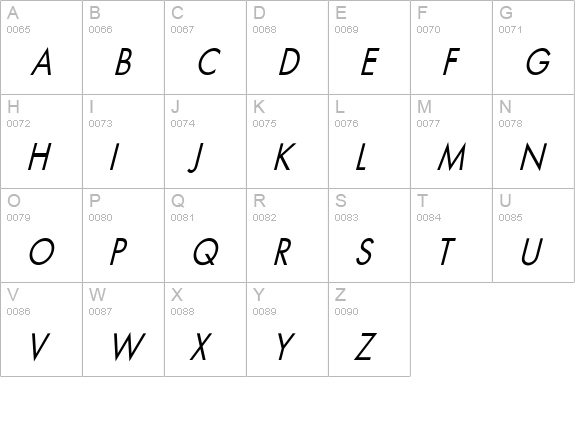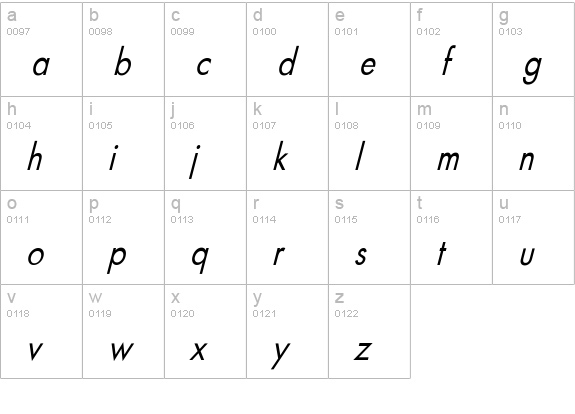
BelmarCndObl-No Font Details
BelmarCndObl-No font is a modern and stylish typeface that exudes elegance and sophistication. Its condensed and oblique design adds a unique touch to any project, making it stand out from the crowd. This font is perfect for creating sleek and contemporary designs for various purposes, such as branding, logos, headlines, and more. What's even better is that BelmarCndObl-No font is available for free download at FontsMarket.com. This means you can easily access this beautiful font and use it in your projects without any hassle. Don't miss out on the opportunity to enhance your designs with this stunning typeface that is both eye-catching and versatile. Download BelmarCndObl-No font today and elevate your creative work to the next level!